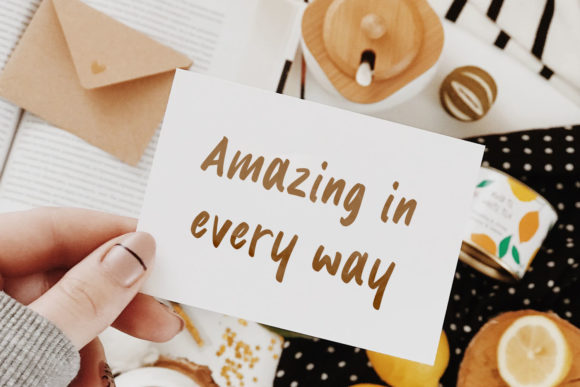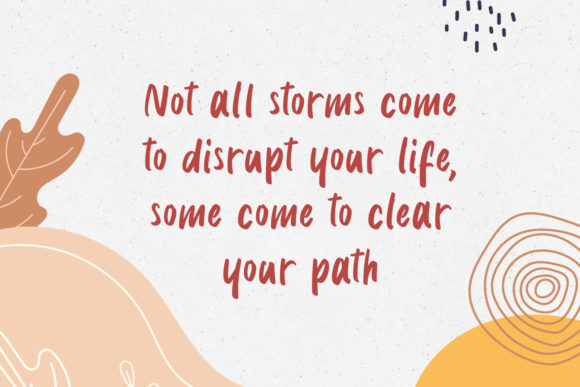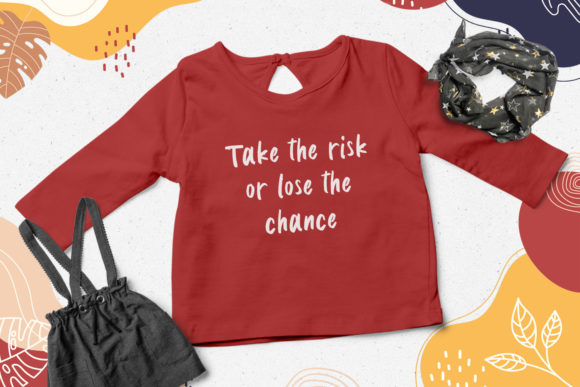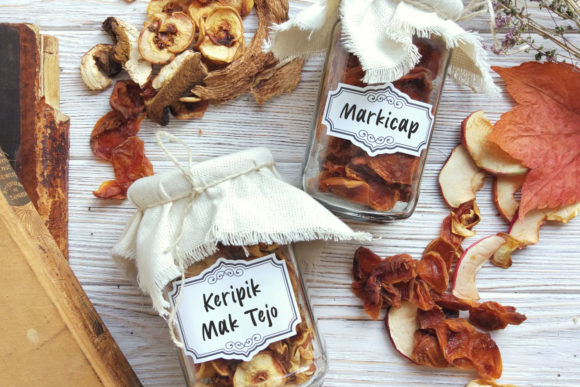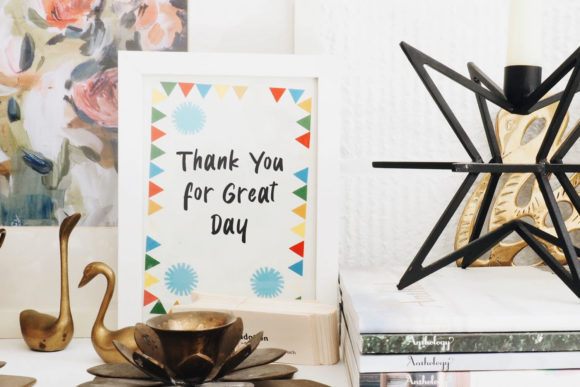
Delaney Nicholas Font
About Delaney Nicholas Font
Delaney Nicholas is a playful handwritten font, created with the help of a brush pen. Beautiful and versatile, this font will become your top choice for a wide spectrum of creative ideas in no time!